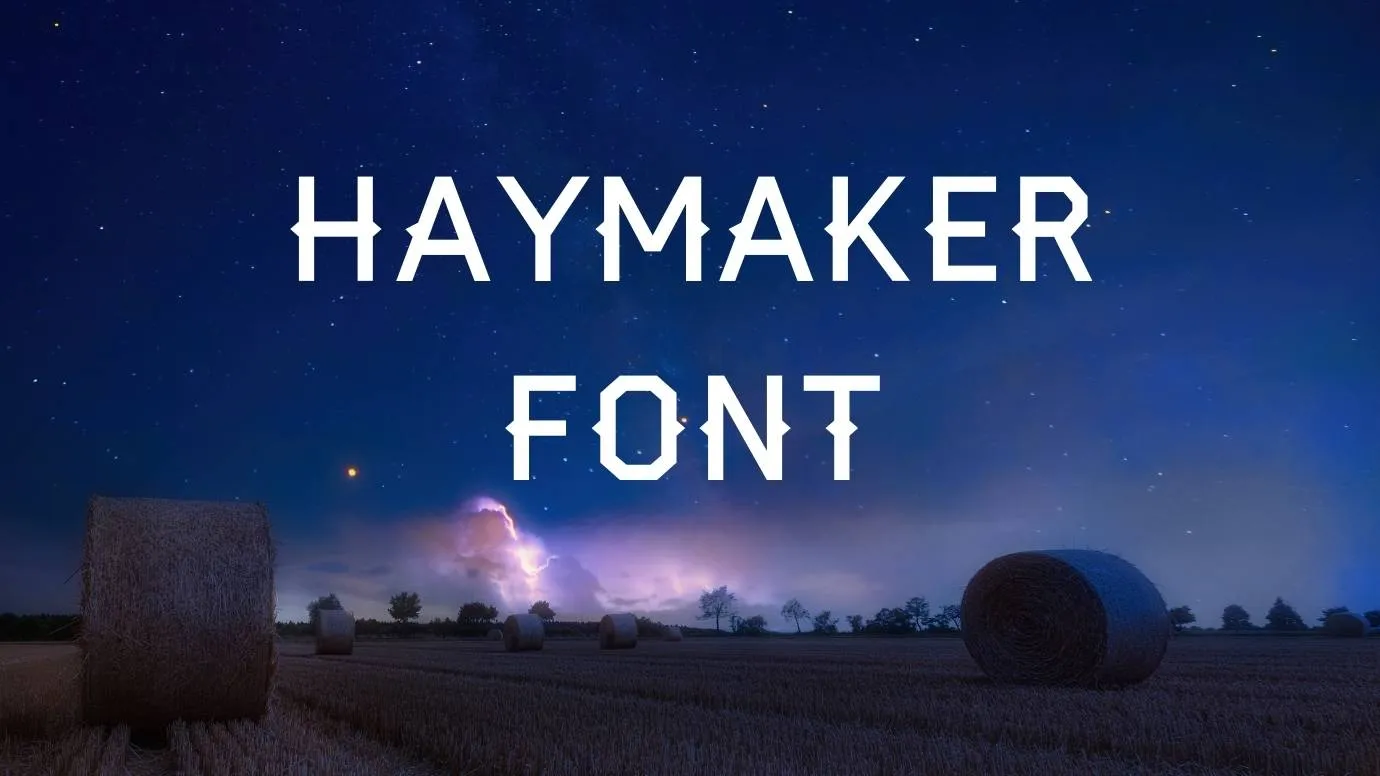
Haymaker Font Family was designed by the renowned designer and photographer Trevor Baum, it was released in 2011. This font is classified within the display category of the font family.
It comes in Open type format. This typeface is ideal and perfect. Because of its features, It makes a clear and smooth-looking text. This typeface support many languages such as Russian, Ukrainian, German, Italian, English, French,  Polish, Bulgarian, and many other languages.
Haymaker Font